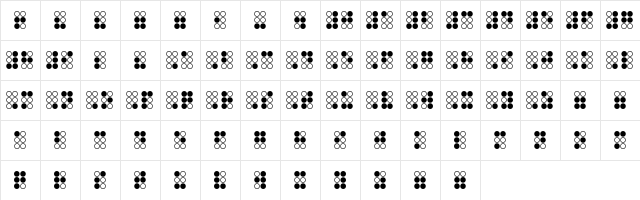
Braille Level One Regular
Design Context for Braille Level One Typeface
Braille Level One takes a measured approach to typography — its balanced proportions and neutral character make it a reliable workhorse for both digital and print work.